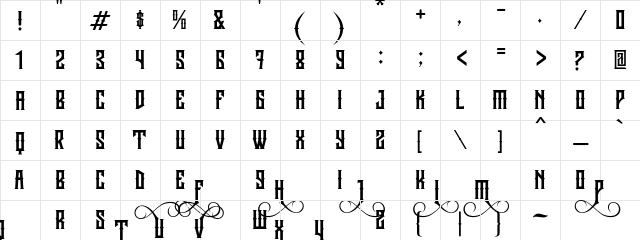
Jibriel Small Caps Font Preview
Jibriel Small Caps Jibriel Small Caps
Jibriel Small Caps Font Details
| Style | Jibriel Small Caps |
| Foundry | Mikrojihad |
| Designer | Mikrojihad |
Design Context for Jibriel Small Caps Typeface
Jibriel Small Caps is a composed and adaptable typeface that performs quietly and consistently across a wide range of design contexts.